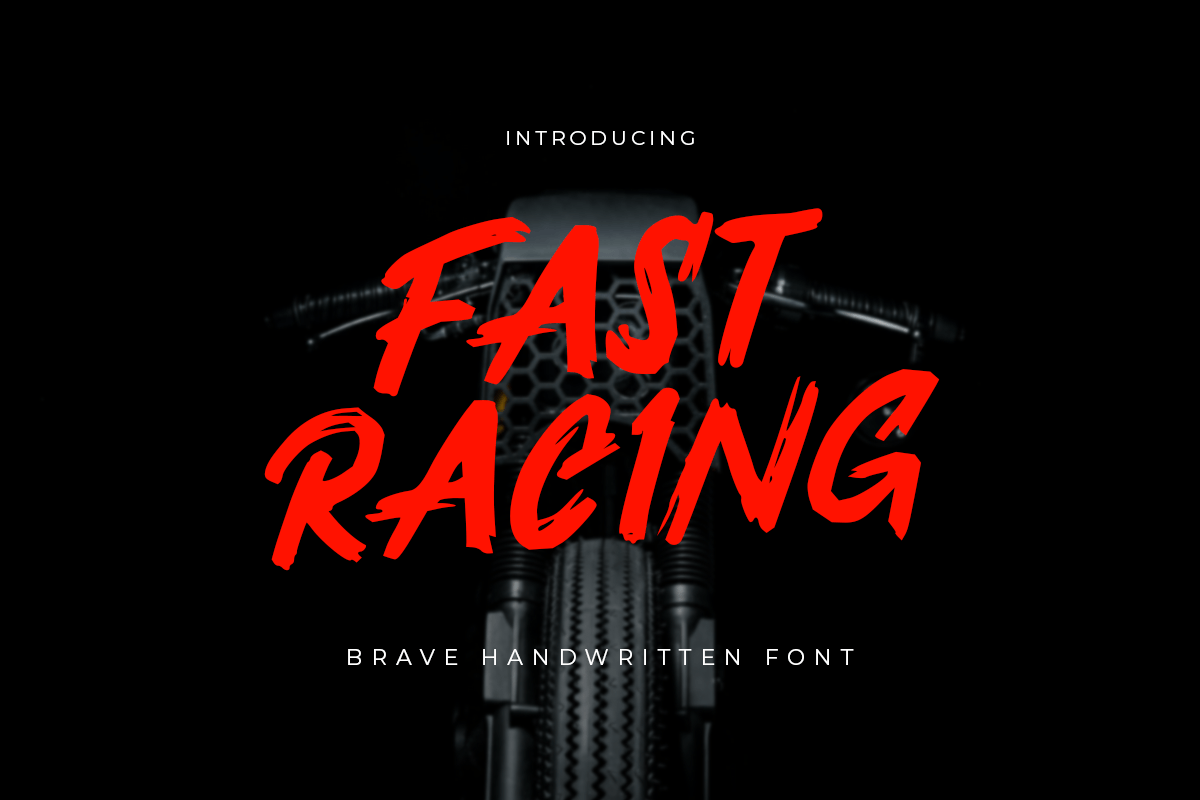
Fast Racing
-Brave Handwritten Font
Fast Racing is a Brave Handwritten font with rough, energetic, and look perfect on action move. This font crafted specials for racing projects, ready to use on any poster, headline, promotion, and Many more that needs rough touches.